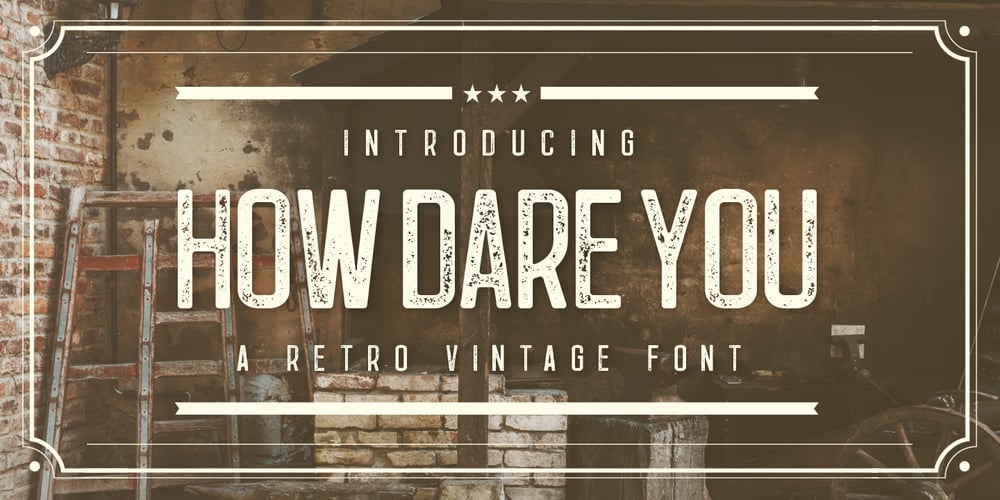
How Dare You Font Family was designed by Hilmius Akbar and published by Typefactory. How Dare You contains 1 styles and family package options. How Dare You is a Retro Vintage typeface, perfectly suitable for creating quotes, Fashion, lifestyle design such as logos, title, and magazine and more.Features:– Uppercase– Lowercase– Symbols & Punctuation– Numeral– Ligature– Alternate– Multilingual Support